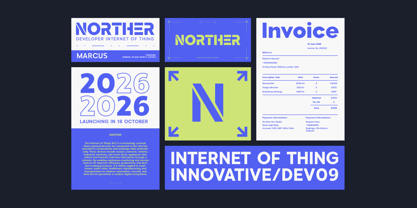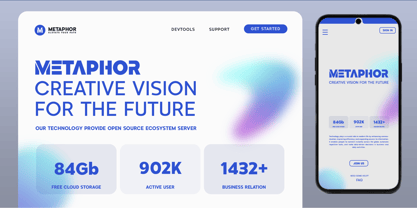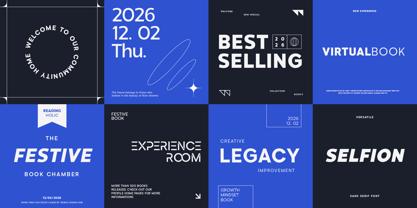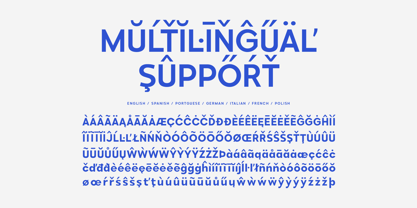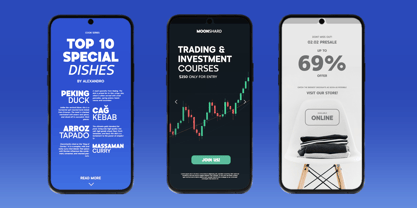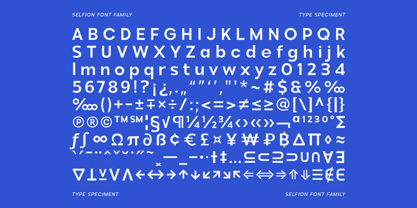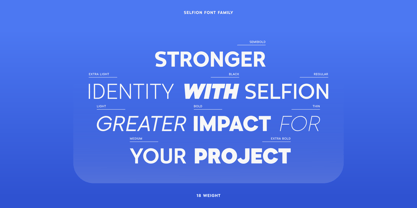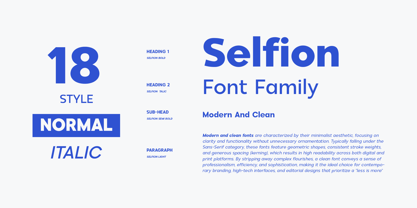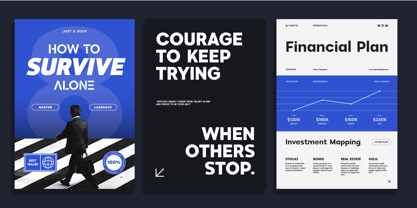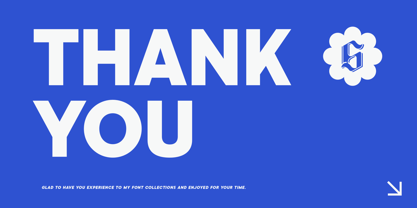
Selfion
by GuseType
The Selfion Font Family was designed by Guntur Septyan and published by GuseType. Selfion contains 18 styles and family package options. More about this family
Selfion is a modern sans serif typeface designed to bring a clean, futuristic, and professional look to your designs. With its minimal shapes and balanced proportions, this font delivers clarity and sophistication in every letter. It is perfect for a wide range of creative projects, including branding, logos, headlines, websites, posters, and digital content. Whether you want to create a sleek modern identity or a professional visual presence, this versatile typeface helps your work stand out with a refined and contemporary style. Highlight Selfion font features, such as:  * Standard Glyph * Stylistic Alternates & Ligatures * Symbol & Punctuation * Multiple Languages Supported * 18 Style